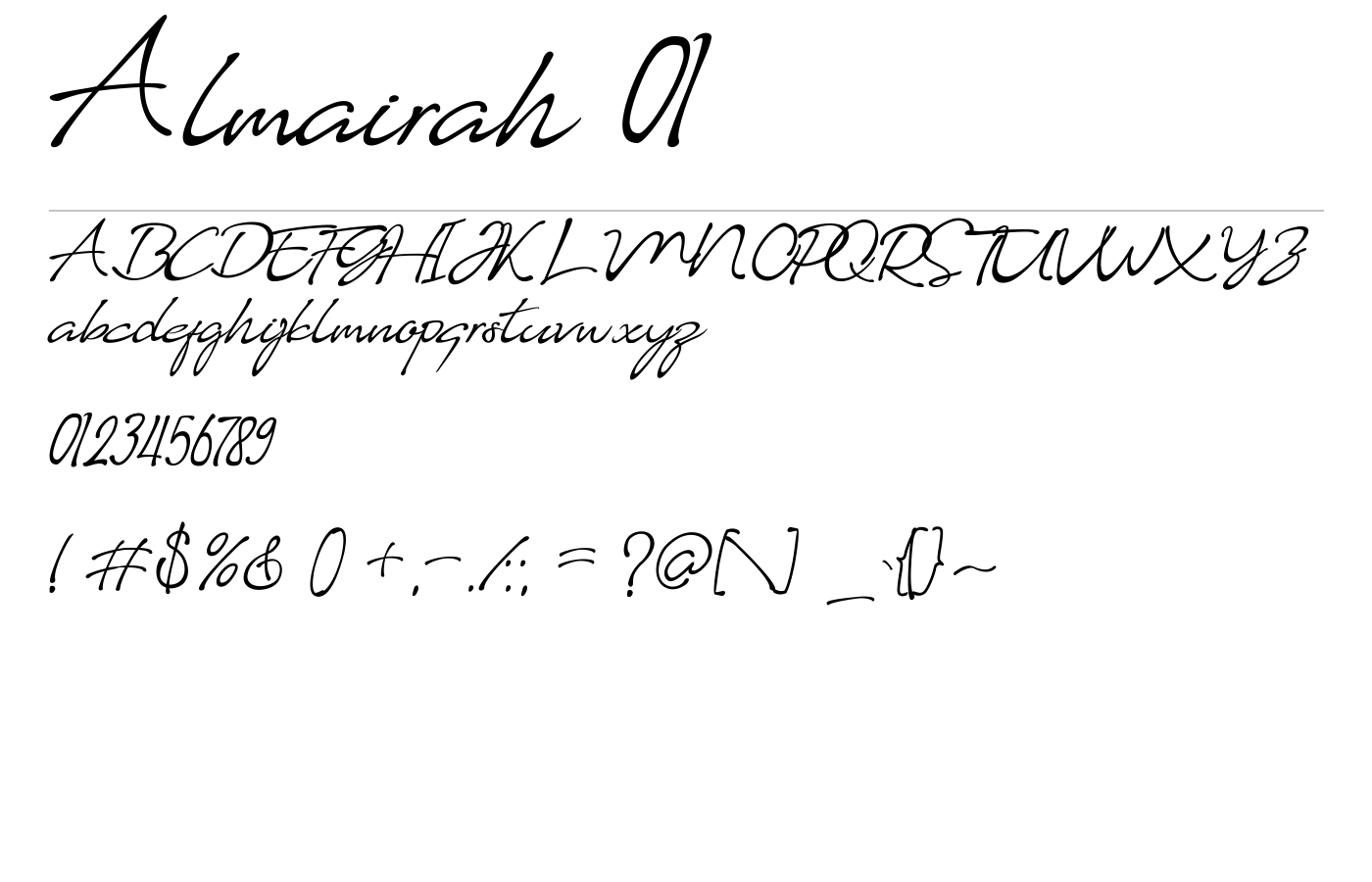
Almairah 01 is an elegant, handwritten script font with a light weight and fluid, natural strokes that give it a personal and refined feel. Its tall, slender letterforms and subtle variations in line thickness convey a stylish, sophisticated charm, making it ideal for invitations, branding, and creative projects seeking a graceful and modern touch. This font works beautifully in designs that aim to evoke warmth and elegance with a contemporary handwritten flair.
Almairah 01 Font
About Almairah 01 Font
| Font family | Almairah 01 Font |
| Designer | Muhammad Romzul Khoir |